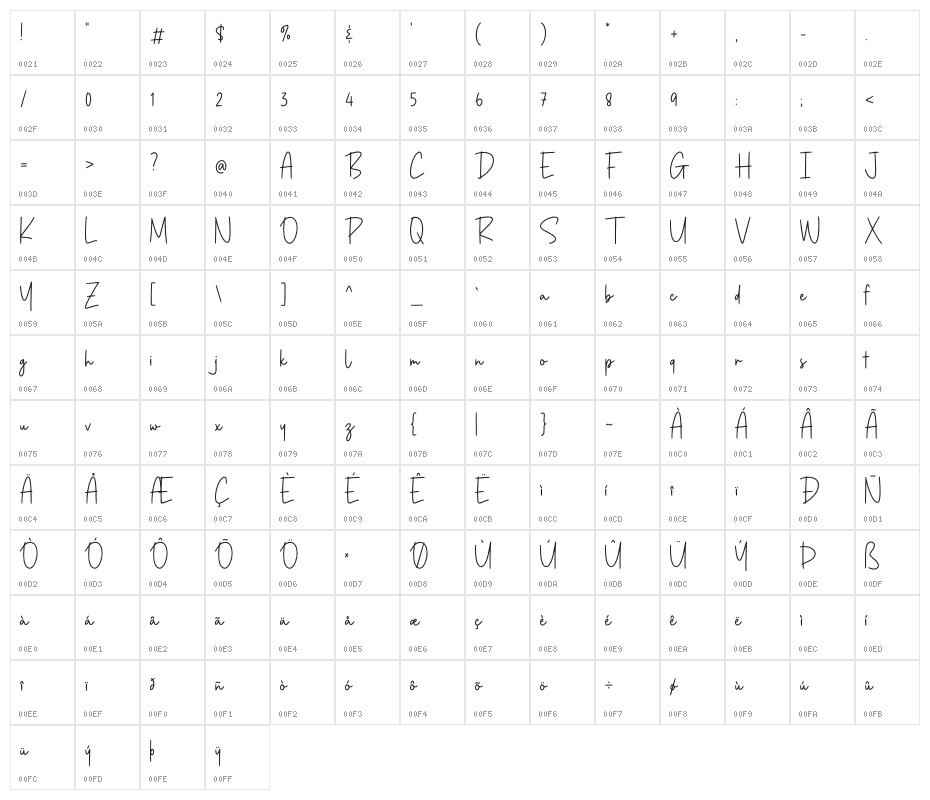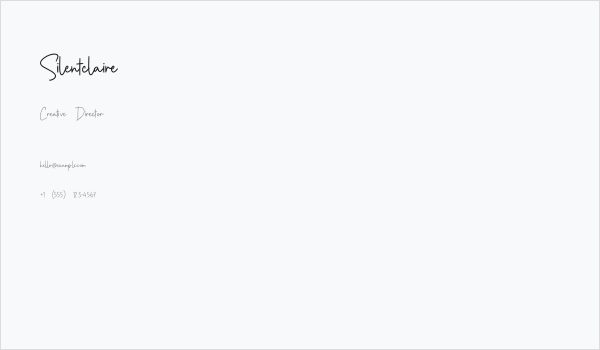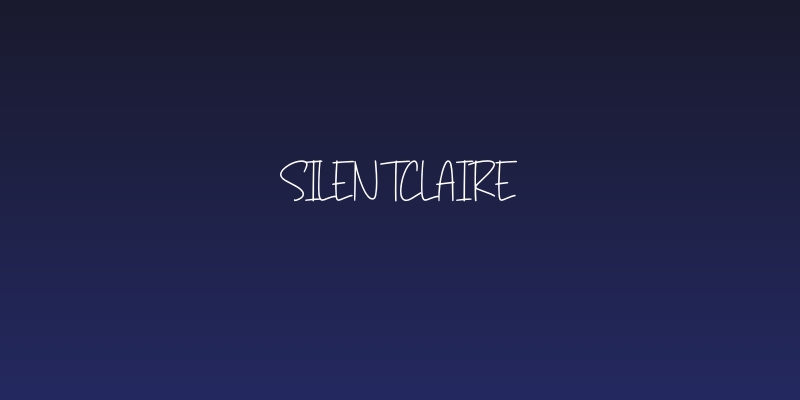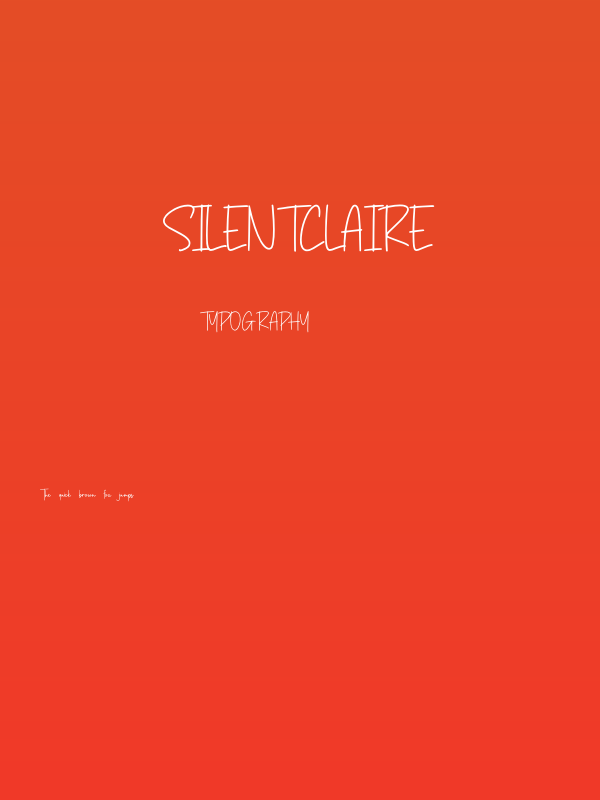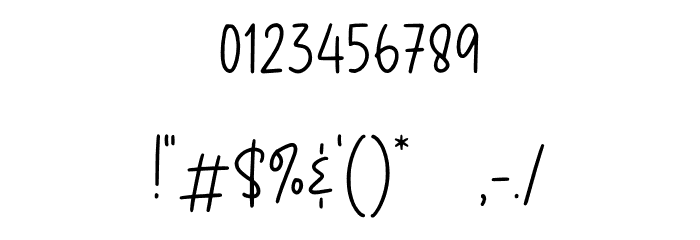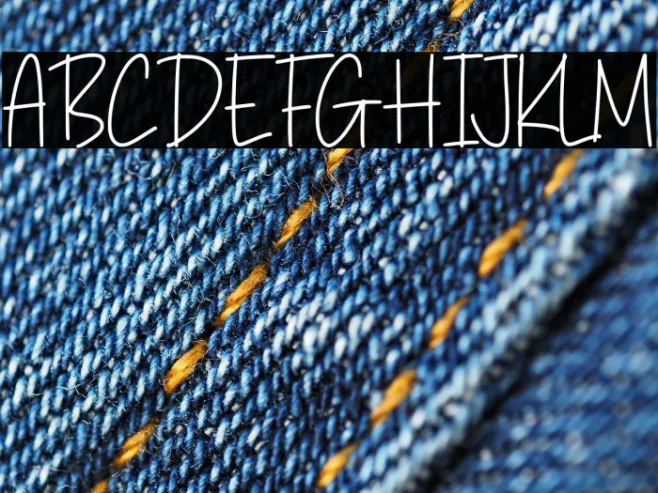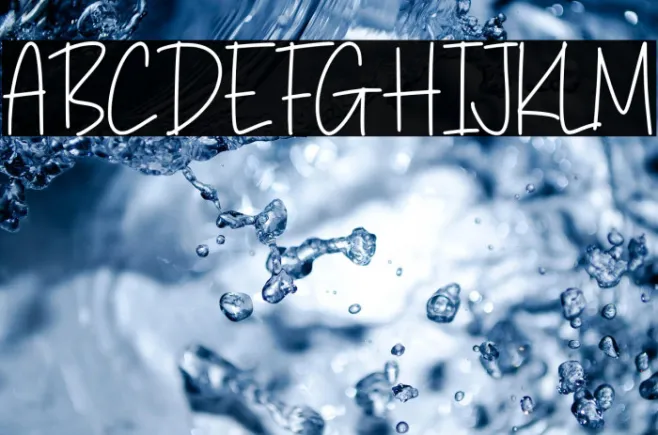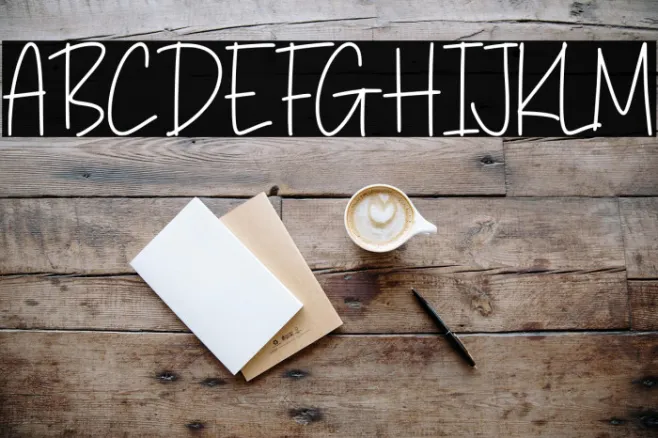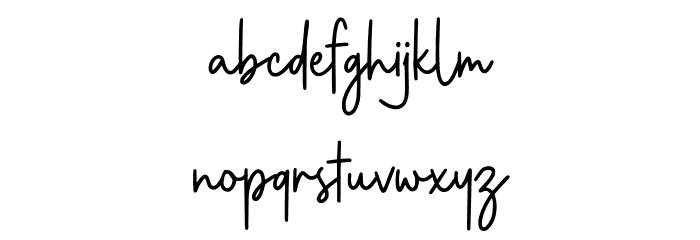
Silentclaire Font
Silentclaire Description
This font features a playful and casual handwritten style, characterized by its tall, narrow letterforms and slightly irregular strokes. The uppercase letters are bold and prominent, while the lowercase letters maintain a consistent flow with a touch of whimsy. The numbers are clear and easy to read, matching the overall informal aesthetic. Special characters are well-integrated, adding to the font's versatility. The strokes are consistent in weight, providing a harmonious appearance across all characters. This font exudes a friendly and approachable vibe, making it suitable for a variety of creative applications.
| Use Case | Logos, Headlines, Informal Text |
| Proposed Projects | Ideal for greeting cards, invitations, personal branding, and social media graphics. |